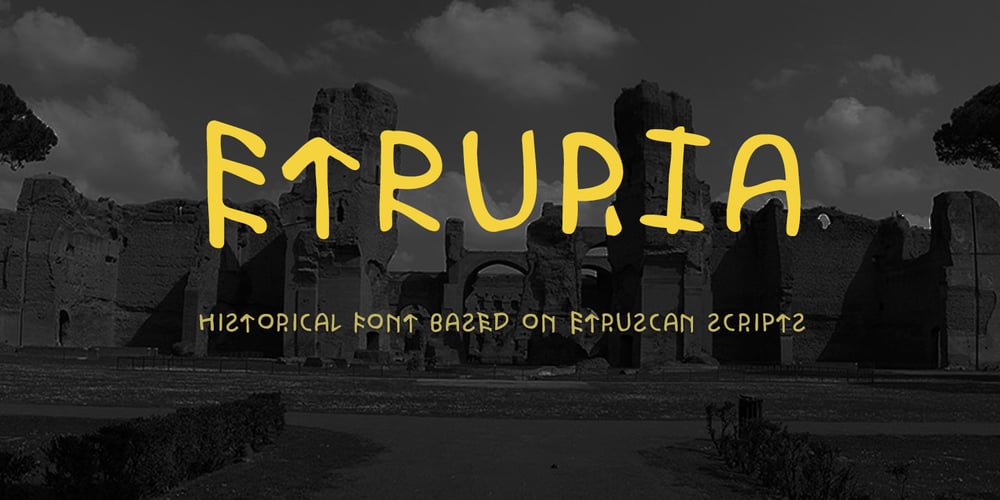
Etruria
Etruria font
Etruria Font Family was designed by Dima Pole and published by Dima Pole. Etruria contains 1 styles and family package options. Font Etruria is based on a real Etruscan inscriptions and realistic accurately simulates the writing of the Etruscans. The idea of the font Etruria is to give an opportunity for anyone to touch the past of mankind! The character of the Etruscan alphabet involves the creation of a font with only uppercase letters. However, I did not limit this font by that. Etruria has not only a lowercase is different from uppercase, but an additional sets of alternative characters. In General, the main characteristic of Etruscan writing is randomness and diversity of characters. Differs from lowercase to uppercase is only the first step on the road to make randomness effect. Next to the aid of the OT features. To recreate the randomness effect, in Etruria there are several OT features (Contextual Alternates, Stylistic Alternates and Stylistic Sets), which built a script to simulate randomness. Additionally, another script creates the effect of random positioning. Together they create incredibly realistic Etruscan inscription. Thus, any of these features can be disabled at will. I also used a small line spacing, because it is characteristic of the Etruscan writing. Actually the Etruscan writings is a mirror of the writings compared with the current European alphabets. I didn’t use this feature all the letters, because this would make the font difficult to perceive, but to make the font characteristic of the Etruscan style, Etruria has a few letters in mirror image. However, if for someone it may seem unusual, mirrored letters can be disabled instead of them will appear more familiar to them. Another feature of Etruscan writing is the use instead of a space dotacentered. Font Etruria has this feature, there is a OT feature Stylistic set ss03. Naturally, it also can optionally be disabled. All these features can be used together, separately, or turn it off. The main goal achieved! The text typed in Etruria, creates full impression of these Etruscan inscriptions.